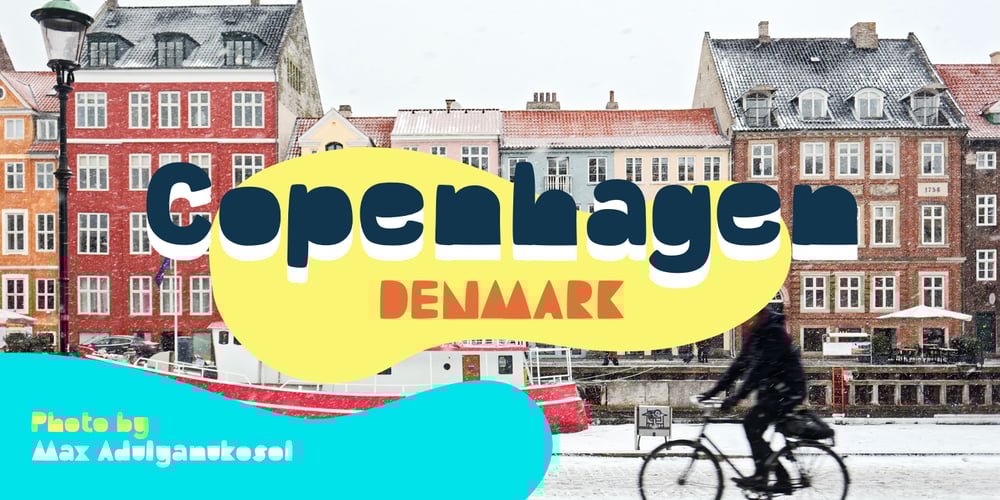
Hello Walter Font Family was designed by David Alexander Slaager and published by Fonts of Chaos. Hello Walter contains 1 styles and family package options. Hello Walter is a nice and clean typography I made for my little boy Walter. The story behind is I want to create a bold font with less holes and funny shapes. More naive but still serious with a lot of glyphs easy to use in many language cyrilic included. Perfect for web and print, for making logos or children book and app. Have lot of fun.